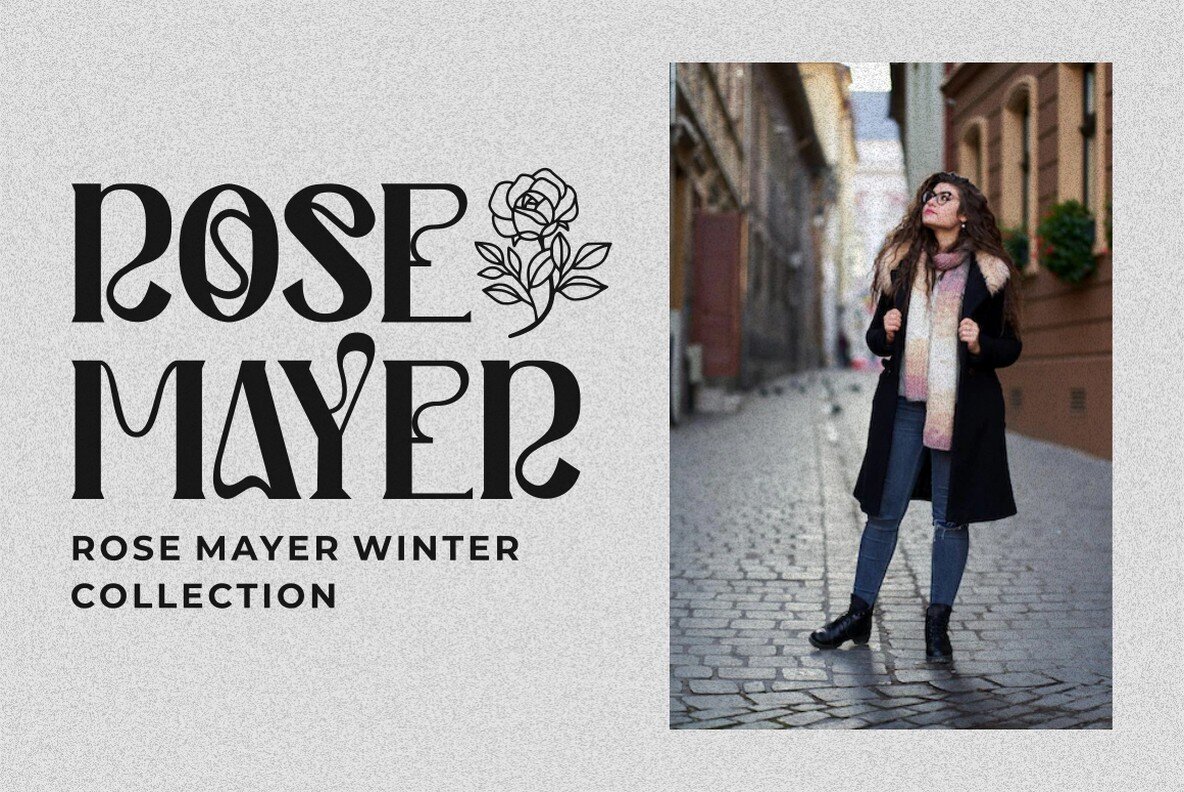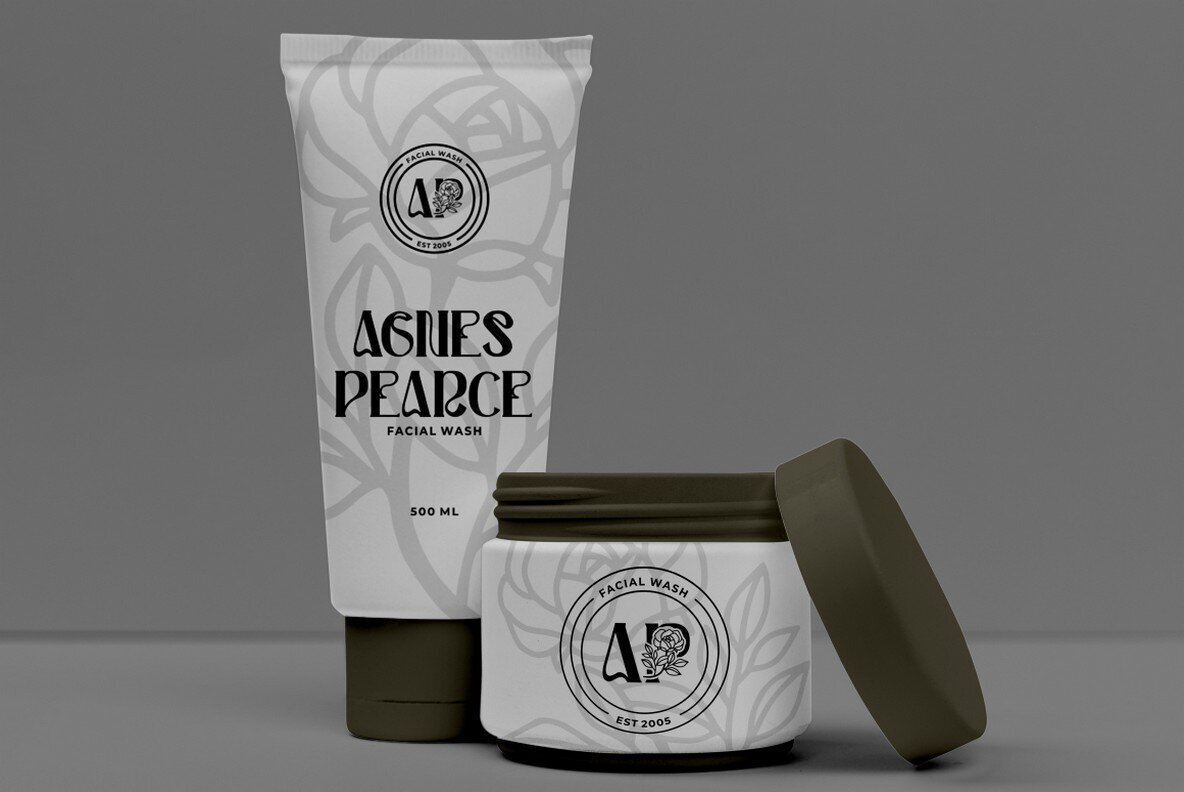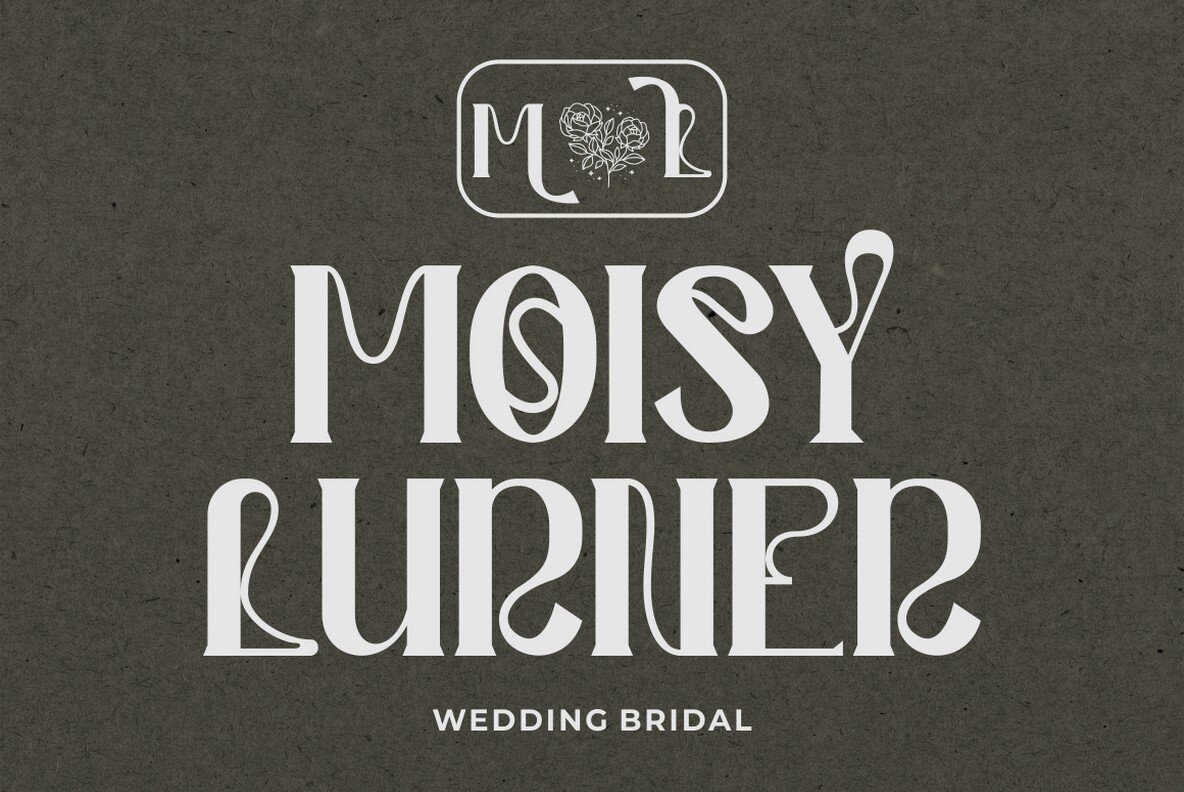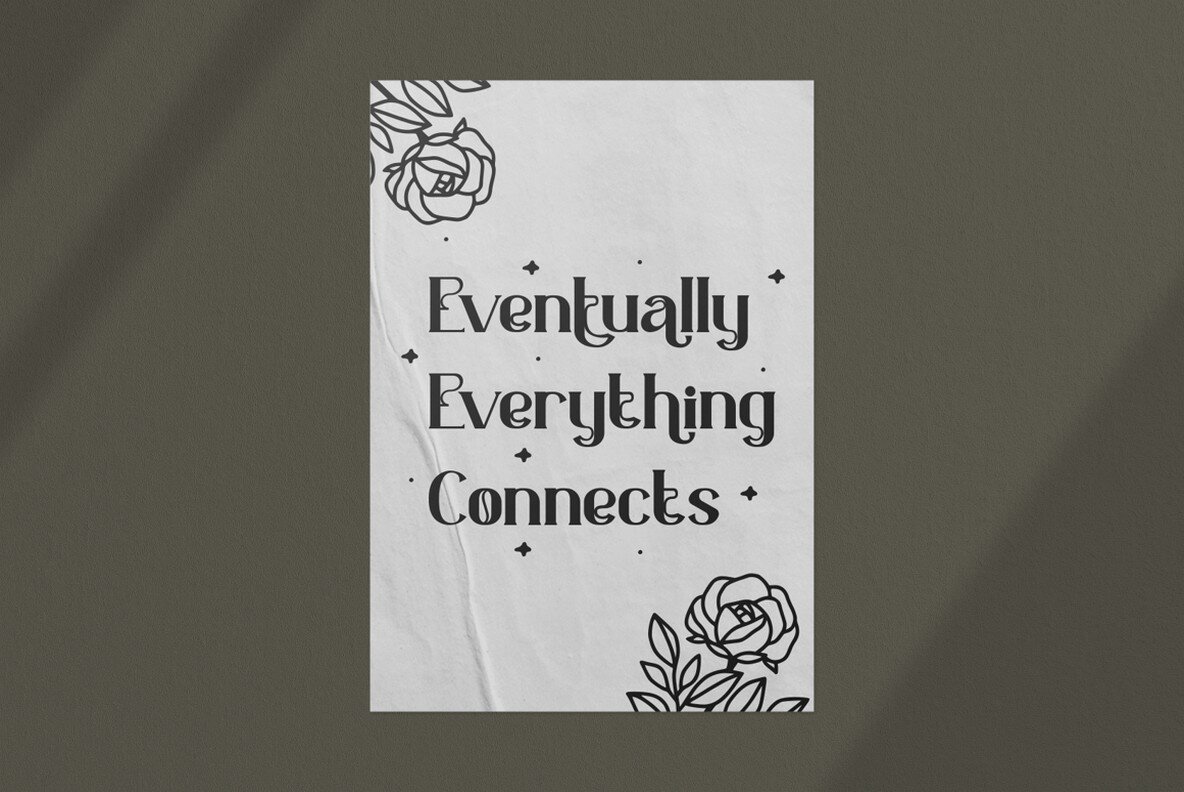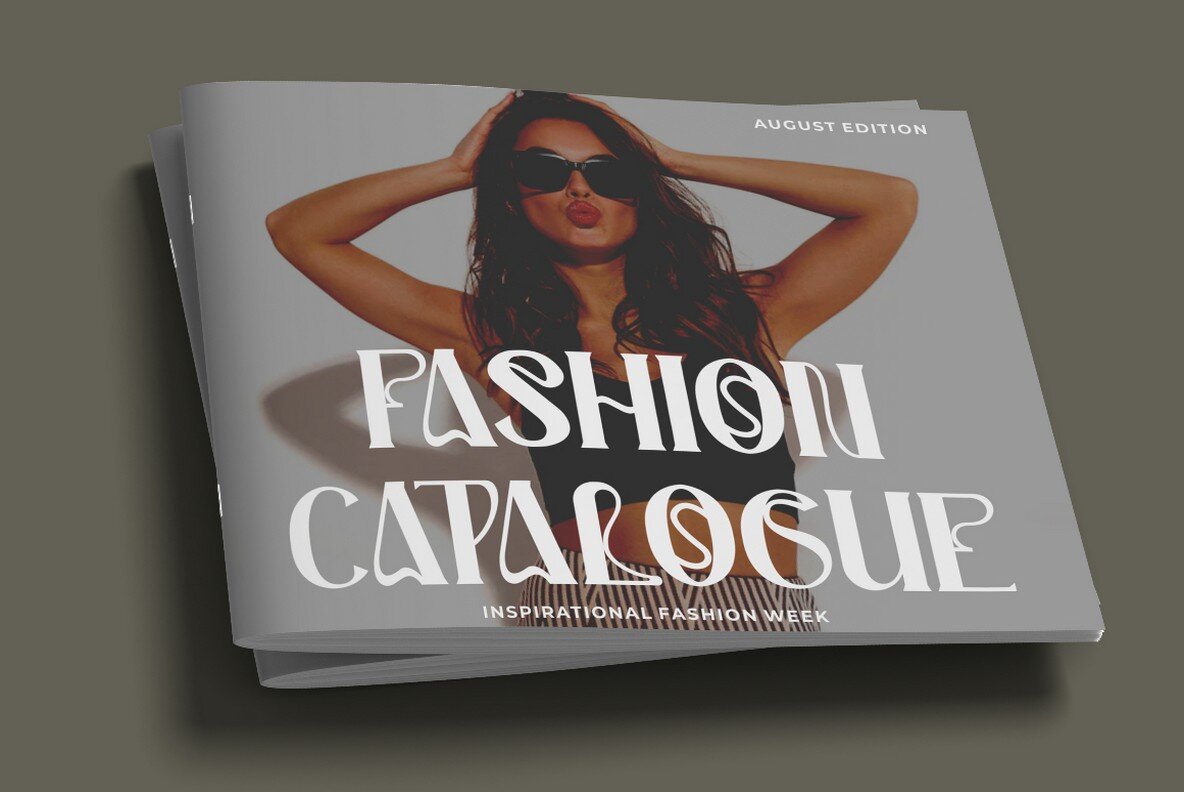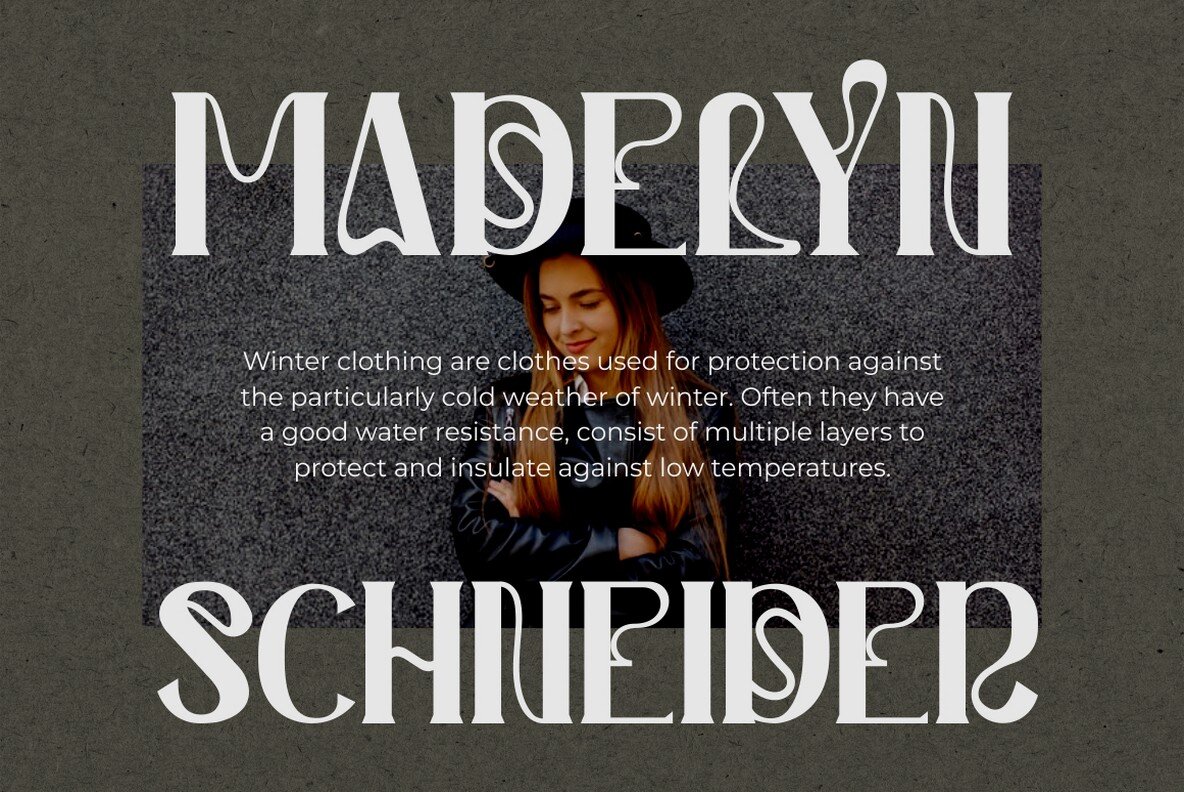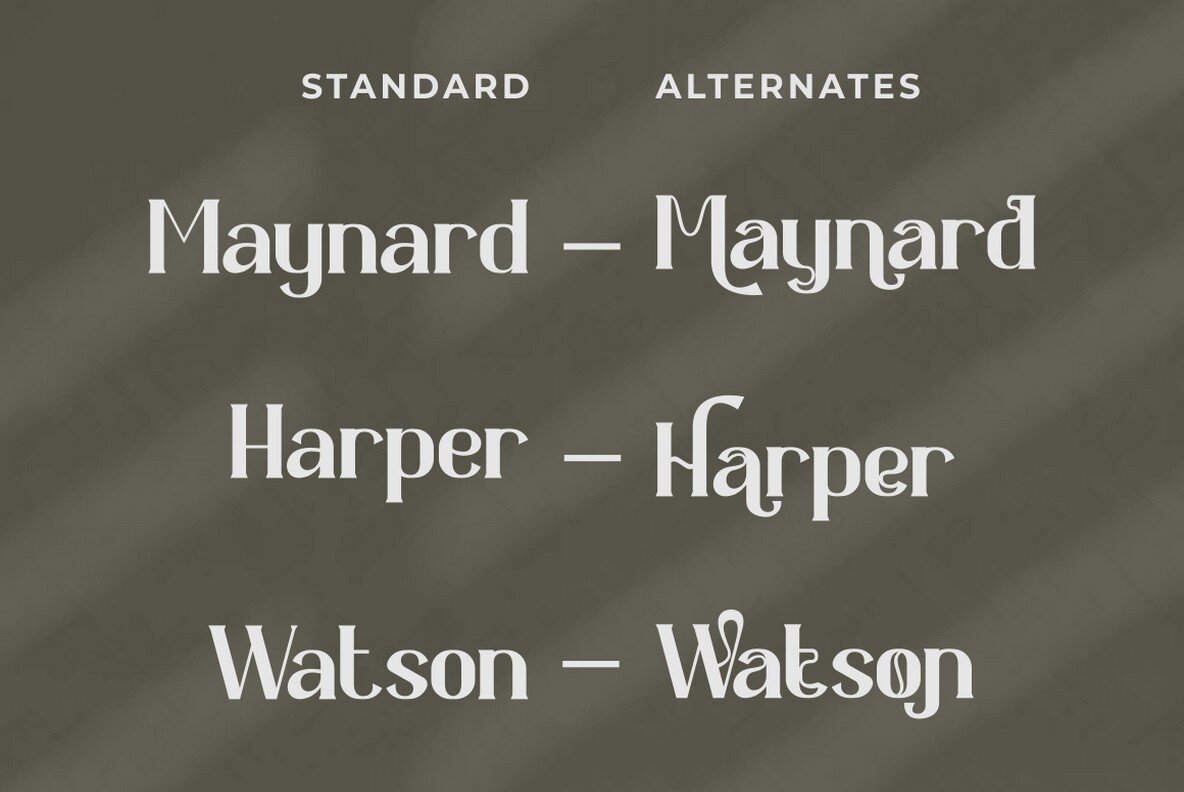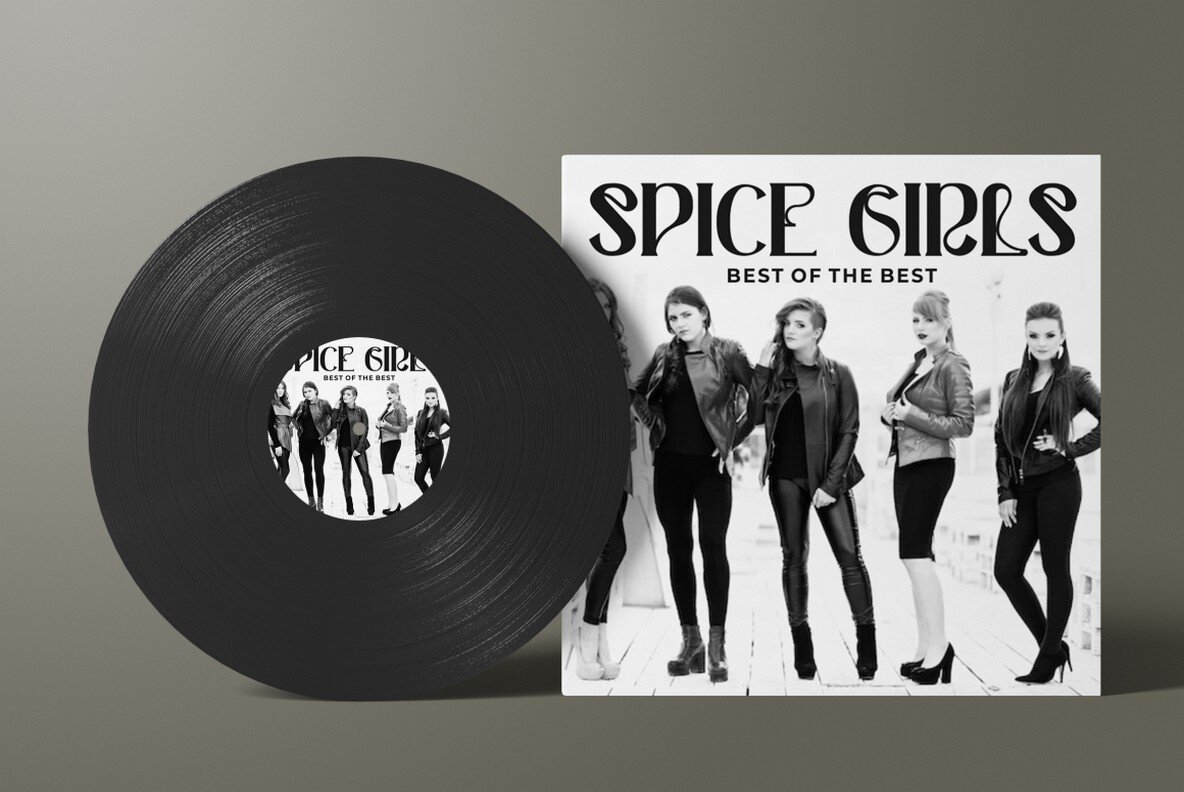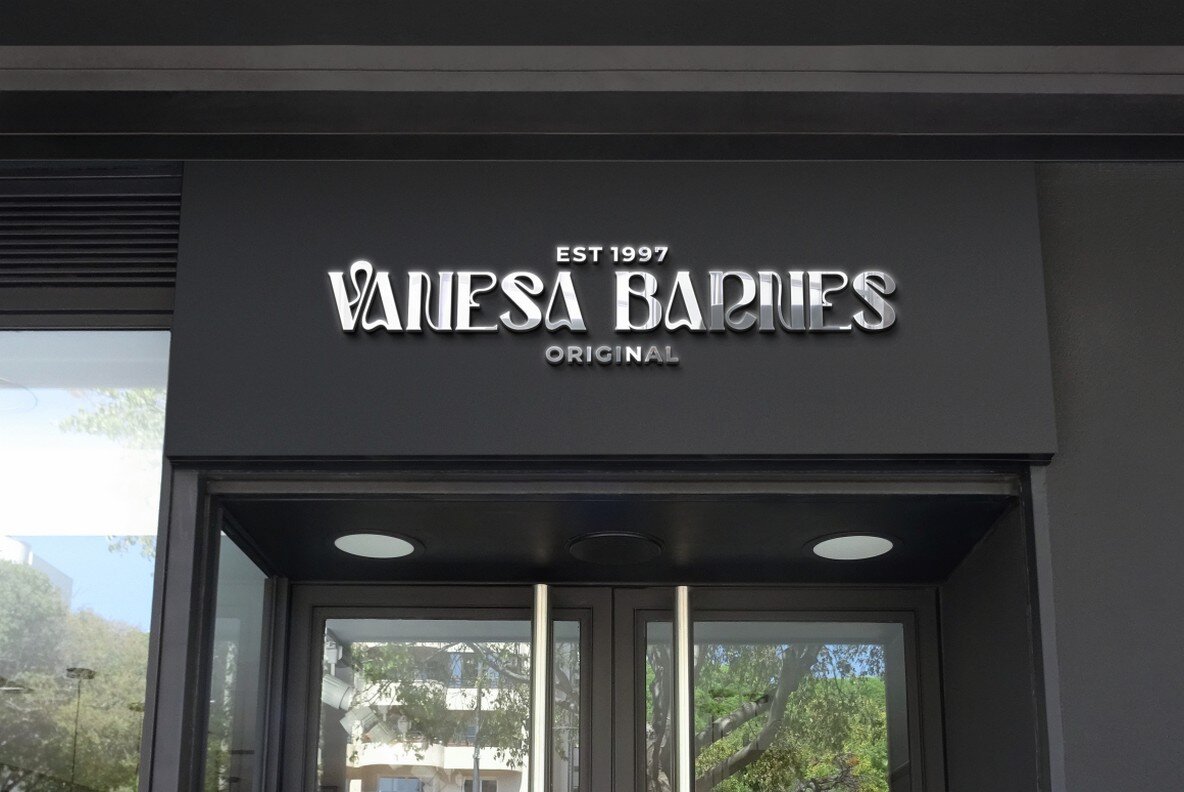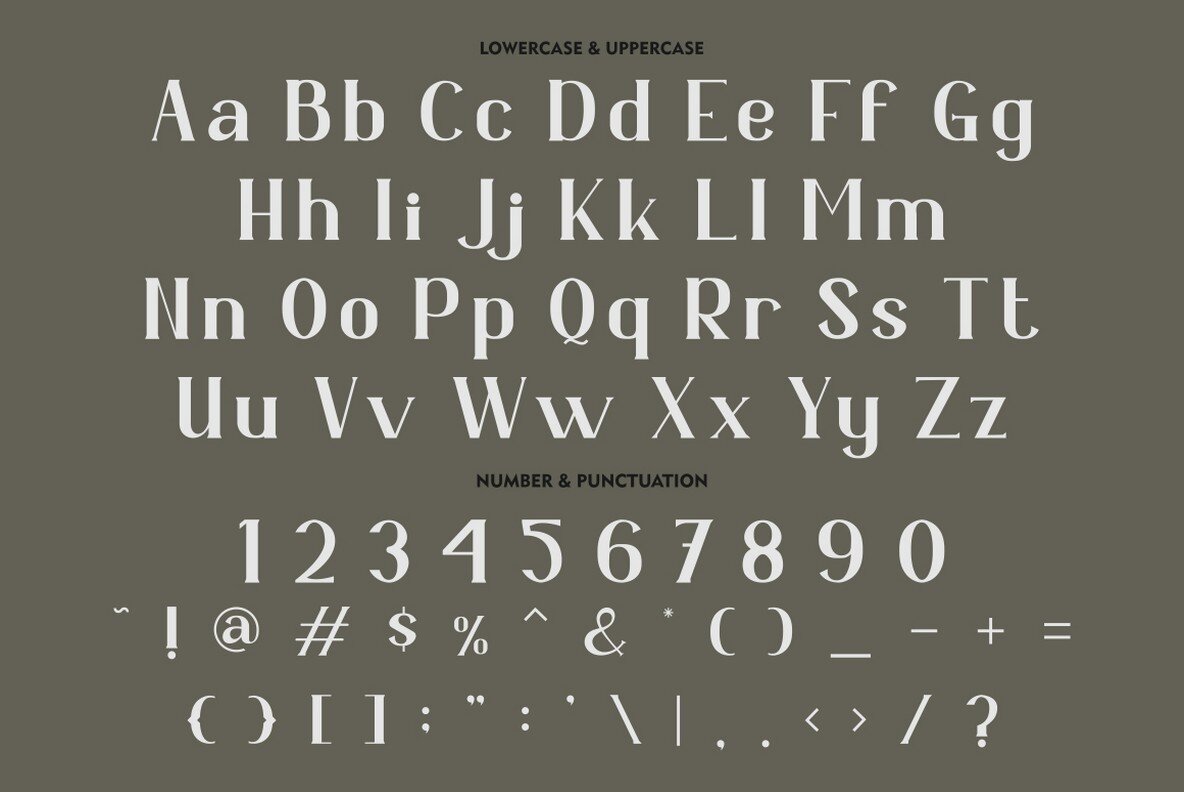
Kapecha Font
Kapecha Regular
Inspired by the distinctive typography and lettering traditions of Bali, Kapecha offers a unique blend of classic and modern serif styles. With an extensive set of options, including 534 glyphs and 359 alternates, this font is perfect for creating a myriad of letter combinations. The OpenType features, with many alternates and end swashes, enhance the lettering experience and allow for creative expression. Kapecha also supports multiple languages, broadening its application across varied projects. Accessing alternate glyphs requires software that supports OpenType features, such as Adobe Illustrator CS, Adobe Photoshop CC, Adobe InDesign, and Corel Draw. Its versatility and elegance make Kapecha a compelling choice for designers seeking a fresh yet timeless typeface for their projects.Kapecha: Modern Serif Font with Classic Influences